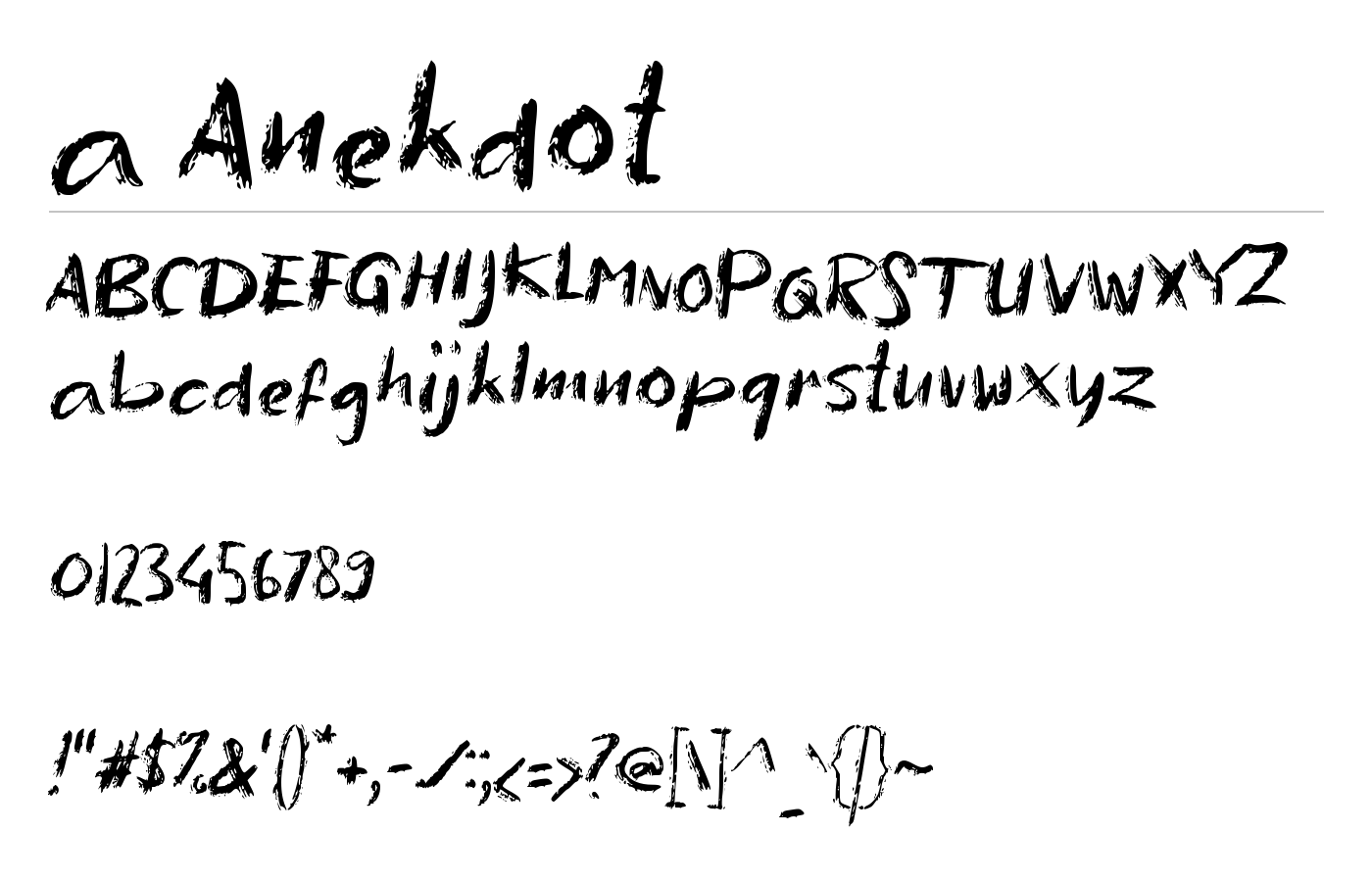
Anekdot is a rough, hand-drawn script font that brings a lively, casual feel with its irregular, textured strokes and spirited letterforms. Its uneven edges and playful, brush-like style make it perfect for creative projects needing a personal, artistic touch, such as posters, informal branding, or fun editorial headlines. This font works well where a dynamic and expressive vibe is desired, adding character and energy to any design.
a Anekdot Font
About a Anekdot Font